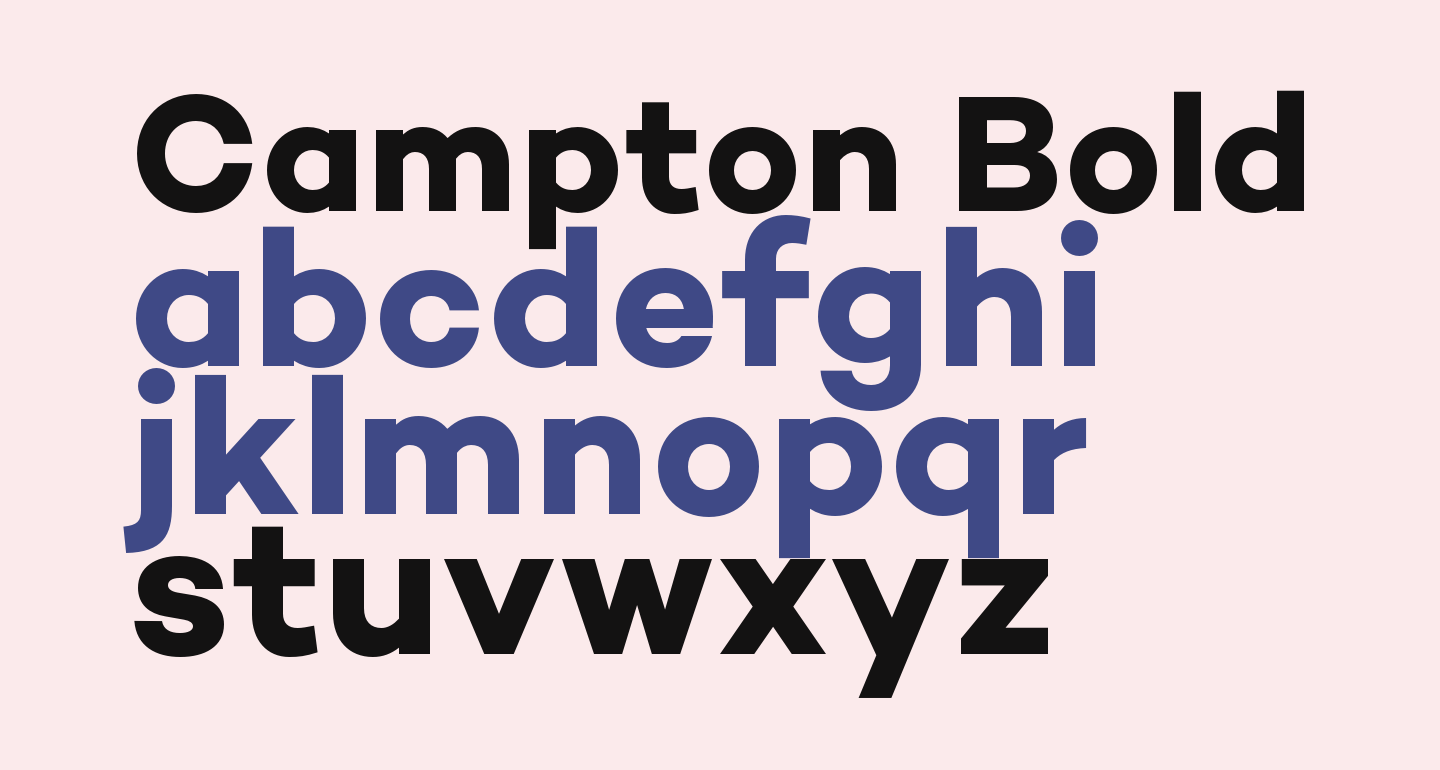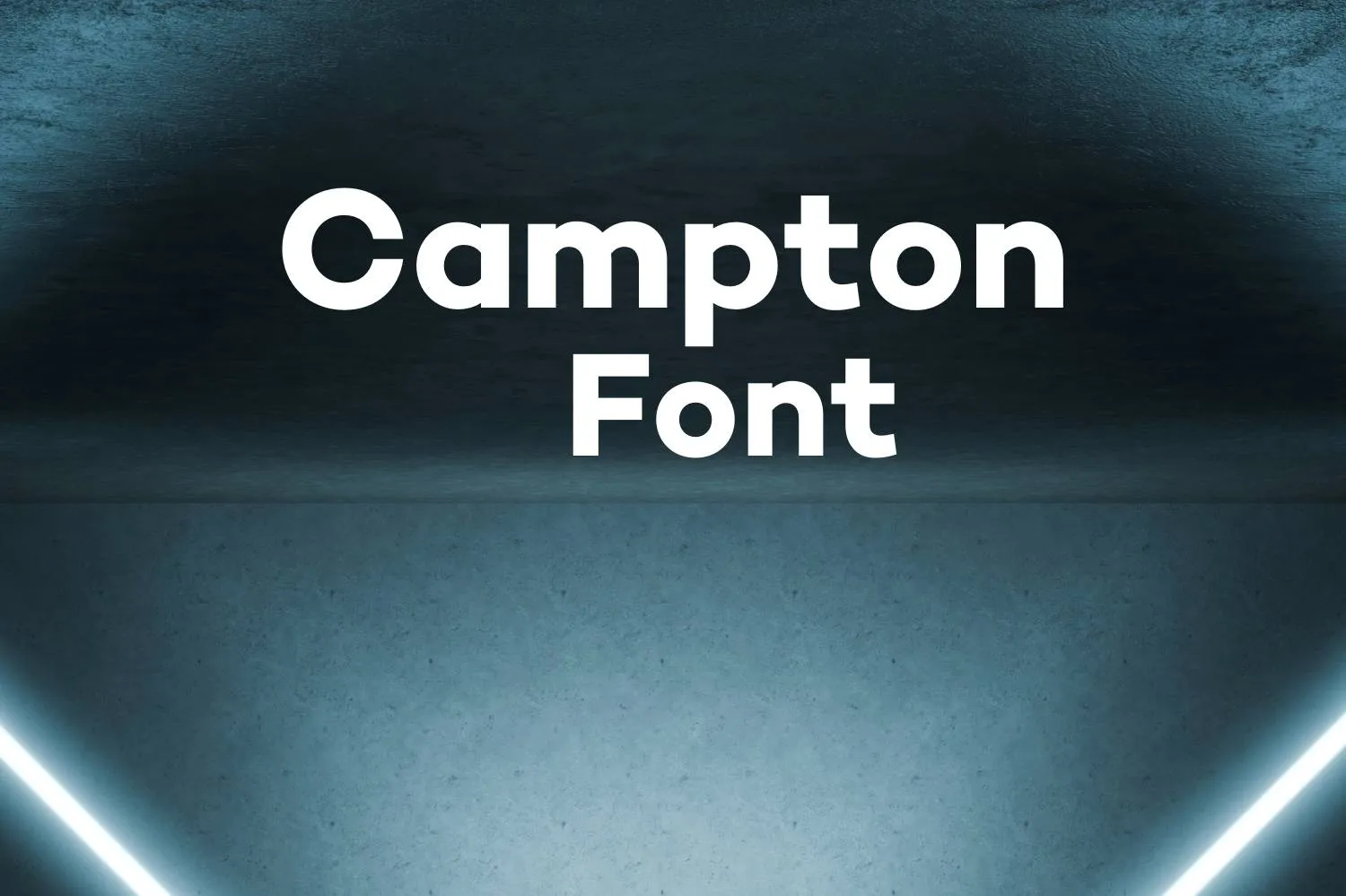
Campton Font Download . Campton is a simple sans serif with a geometric skeleton, based on the mid to early twentieth century visual trend. 2 campton fonts available free. Campton font by rene bieder (rene bieder foundry) is a comprehensive font family consisting of 18 fonts, plus 2 free demo fonts (campton light. Moreover, you can embed it to. Campton bold font, campton light font. Campton is an unconventional geometric family based on geometric fonts like futura or avant garde. Download check out more add collection. Campton font family was designed by rené bieder and published by rené bieder. Campton contains 20 styles and family package options. The result is a modern and quirky family. This typeface has eighteen styles and was published by rené bieder.
Campton is an unconventional geometric family based on geometric fonts like futura or avant garde. Campton bold font, campton light font. Campton contains 20 styles and family package options. 2 campton fonts available free. Campton font by rene bieder (rene bieder foundry) is a comprehensive font family consisting of 18 fonts, plus 2 free demo fonts (campton light. The result is a modern and quirky family. Moreover, you can embed it to. Campton is a simple sans serif with a geometric skeleton, based on the mid to early twentieth century visual trend. This typeface has eighteen styles and was published by rené bieder. Campton font family was designed by rené bieder and published by rené bieder.
Campton Font Download 2 campton fonts available free. Campton bold font, campton light font. The result is a modern and quirky family. Campton font family was designed by rené bieder and published by rené bieder. Download check out more add collection. Campton is an unconventional geometric family based on geometric fonts like futura or avant garde. Moreover, you can embed it to. 2 campton fonts available free. Campton font by rene bieder (rene bieder foundry) is a comprehensive font family consisting of 18 fonts, plus 2 free demo fonts (campton light. Campton is a simple sans serif with a geometric skeleton, based on the mid to early twentieth century visual trend. Campton contains 20 styles and family package options. This typeface has eighteen styles and was published by rené bieder.
Campton Font Free Download Free Fonts Campton Font Download Moreover, you can embed it to. Campton is a simple sans serif with a geometric skeleton, based on the mid to early twentieth century visual trend. Campton contains 20 styles and family package options. 2 campton fonts available free. Campton font family was designed by rené bieder and published by rené bieder. Download check out more add collection. Campton is. Campton Font Download.
Campton W00 Bold DEMO 1.00 Fonts Free Download Campton Font Download 2 campton fonts available free. Campton font family was designed by rené bieder and published by rené bieder. Campton is an unconventional geometric family based on geometric fonts like futura or avant garde. Moreover, you can embed it to. This typeface has eighteen styles and was published by rené bieder. The result is a modern and quirky family. Download check. Campton Font Download.
the font and numbers are all in different colors, shapes, and sizes for Campton Font Download check out more add collection. Campton font by rene bieder (rene bieder foundry) is a comprehensive font family consisting of 18 fonts, plus 2 free demo fonts (campton light. 2 campton fonts available free. Campton bold font, campton light font. Campton is an unconventional geometric family based on geometric fonts like futura or avant garde. Campton contains 20 styles. Campton Font Download.
Campton Black Fonts Downloads Campton Font Download Campton contains 20 styles and family package options. Campton font family was designed by rené bieder and published by rené bieder. Campton bold font, campton light font. Campton font by rene bieder (rene bieder foundry) is a comprehensive font family consisting of 18 fonts, plus 2 free demo fonts (campton light. 2 campton fonts available free. This typeface has eighteen. Campton Font Download.
Campton Font Free Download Campton Font Download This typeface has eighteen styles and was published by rené bieder. Campton is a simple sans serif with a geometric skeleton, based on the mid to early twentieth century visual trend. Campton contains 20 styles and family package options. Campton is an unconventional geometric family based on geometric fonts like futura or avant garde. The result is a modern and. Campton Font Download.
Campton Font Free Download Campton Font Download Campton is a simple sans serif with a geometric skeleton, based on the mid to early twentieth century visual trend. Moreover, you can embed it to. The result is a modern and quirky family. Campton font family was designed by rené bieder and published by rené bieder. Campton contains 20 styles and family package options. Campton bold font, campton light. Campton Font Download.
Download free Campton Bold DEMO font CamptonBoldDEMO.otf Campton Font Download Moreover, you can embed it to. 2 campton fonts available free. This typeface has eighteen styles and was published by rené bieder. Campton contains 20 styles and family package options. Campton is a simple sans serif with a geometric skeleton, based on the mid to early twentieth century visual trend. Campton bold font, campton light font. Campton is an unconventional. Campton Font Download.
Campton Font Free Download Campton Font Download Moreover, you can embed it to. Campton bold font, campton light font. Campton font by rene bieder (rene bieder foundry) is a comprehensive font family consisting of 18 fonts, plus 2 free demo fonts (campton light. Campton is an unconventional geometric family based on geometric fonts like futura or avant garde. Campton font family was designed by rené bieder and. Campton Font Download.
Campton Font download free Campton Font Download The result is a modern and quirky family. This typeface has eighteen styles and was published by rené bieder. Campton is an unconventional geometric family based on geometric fonts like futura or avant garde. Moreover, you can embed it to. Campton font family was designed by rené bieder and published by rené bieder. Campton is a simple sans serif with. Campton Font Download.